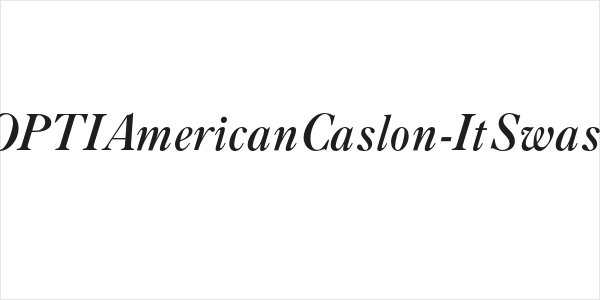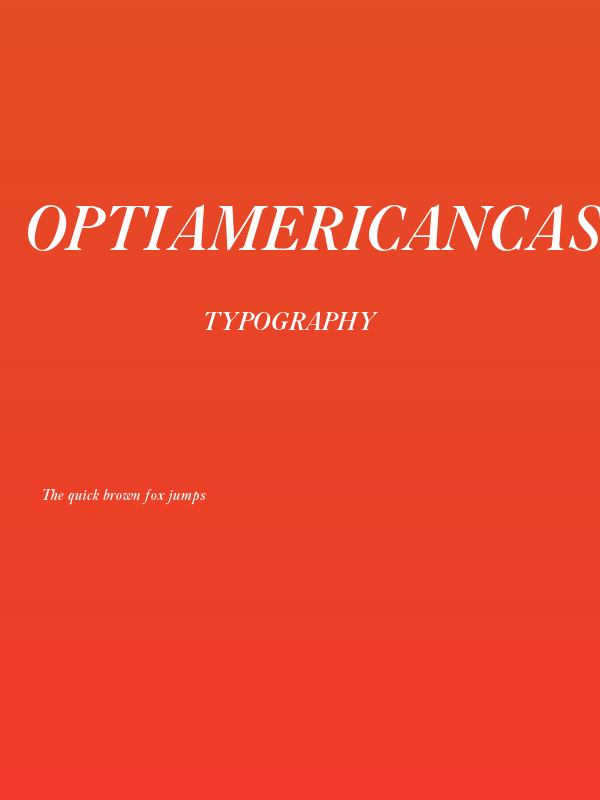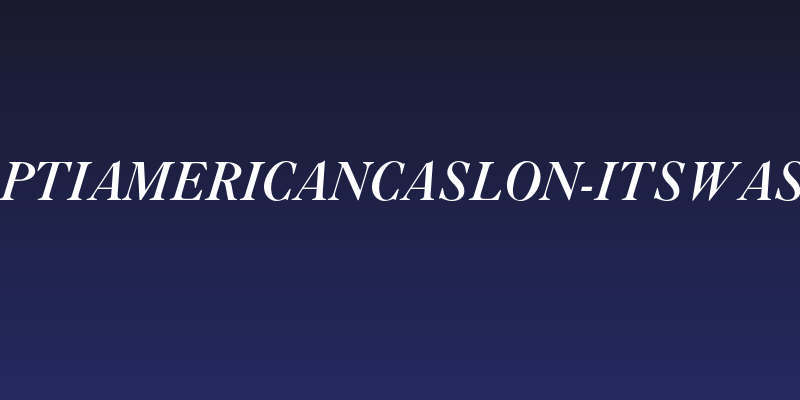
OPTIAmericanCaslon-ItSwash Font
This typeface exudes a classic elegance with its refined, flowing serifs and graceful italic slant. The characters are well-proportioned, offering a sophisticated look that is both timeless and versatile. The uppercase letters are stately, while the lowercase letters maintain a smooth, connected flow, enhancing readability. The numerals are distinct and harmonize well with the overall style. Special characters are crafted with attention to detail, adding to the font's versatility. This font is ideal for projects requiring a touch of class and tradition.
| Proposed Projects | Ideal for formal invitations, editorial design, branding, and luxury product packaging. |